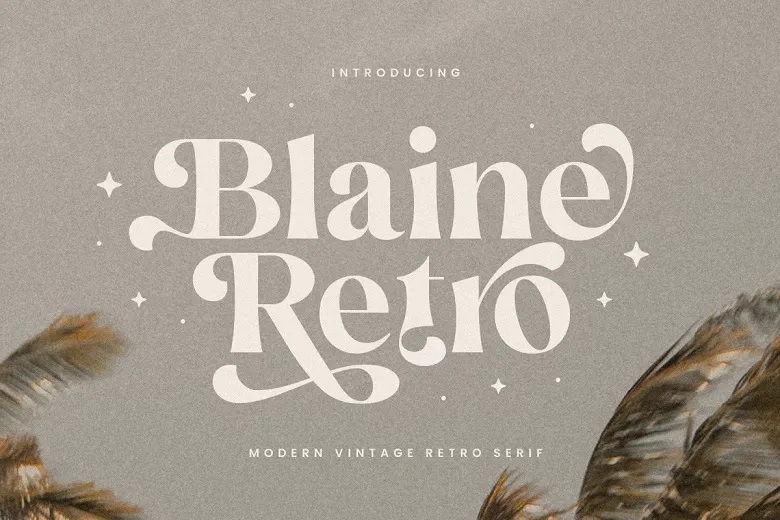
Blaine Retro Font
Blaine is using the vintage serif styled font as the basis of the design in order to breathe modernity into the old school typography. Blaine is the great font for any projects which have to be a little formal, but, at the same time, very movie-like. When it comes to logo, posters or even any branding material this fonts fits the mold to give that retro look which is very much in demand nowadays.
Blaine was born in the age of great design and the style comes from movie posters and old school typography. The idea is to be quite familiar but yet not familiar, this can be a product of art or design among other things. This is due to the fact that Blaine is a very versatile font, the font can be used in many different areas for example; films, and package designs.
Blaine Retro Serif Font